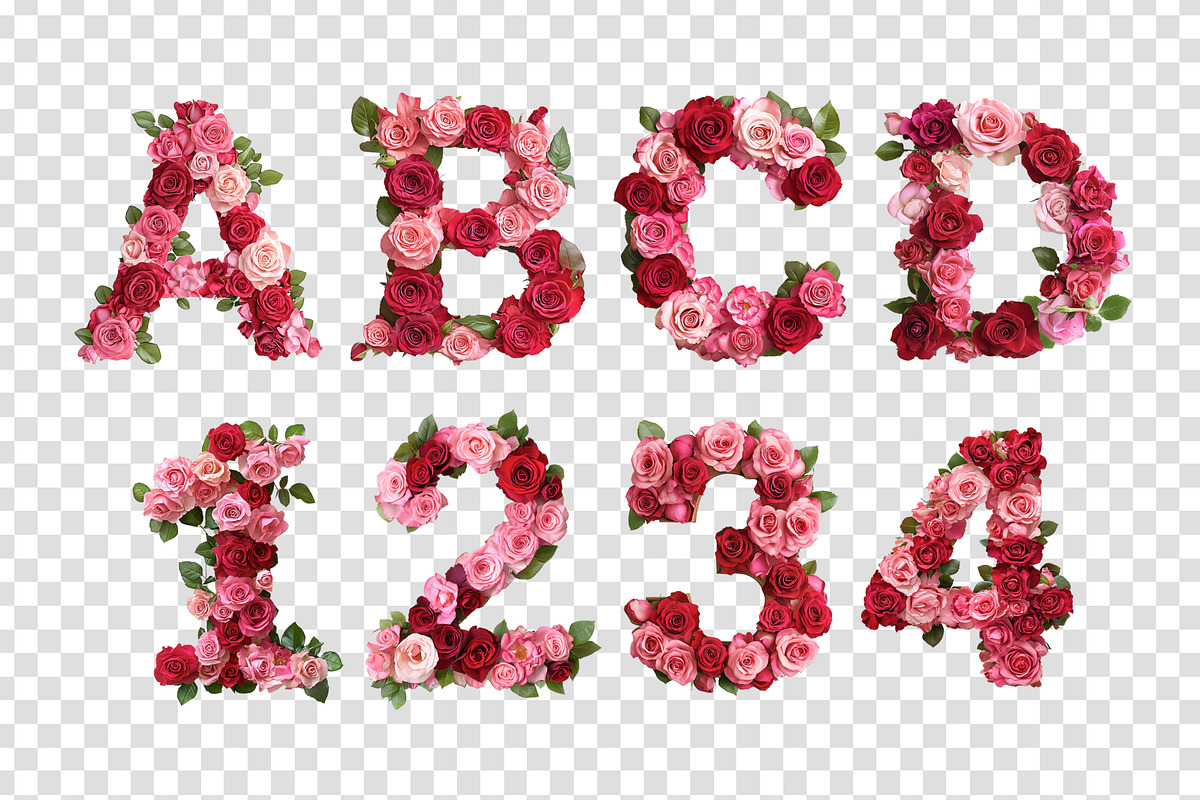
Roses
Roses Font is a romantic, handcrafted display typeface built entirely from real red, white, and pink roses. Each character is formed from high resolution floral arrangements with natural petals, shadows, and leafy accents, creating a lush, dimensional look that feels elegant and expressive. The result is a blooming display font perfect for heartfelt, feminine, or luxury driven designs.
Use it for wedding invitations, Valentine promos, boutique branding, floral packaging, posters, greeting cards, event signage, or any project that needs a soft, romantic, premium touch. This OpenType SVG bitmap font includes uppercase letters and numerals only. Every glyph is created from detailed floral photography baked directly into the file, ensuring a photorealistic texture ideal for larger display sizes, covers, and merch.